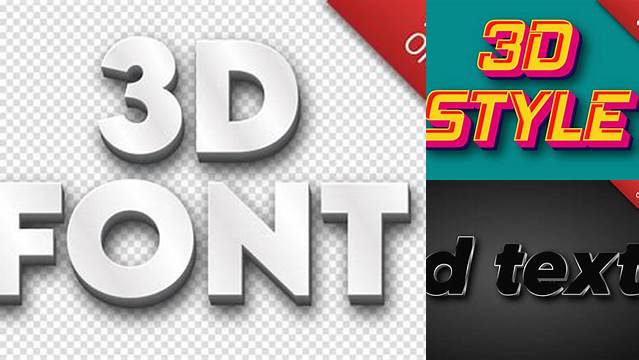
Unleash Your Creativity: Dive into the World of Font Generators & 3D Text Effects
Hey guys! Ever felt the need to spice up your designs, social media posts, or maybe even your presentations? You're in the right place! We're diving headfirst into the amazing world of font generators and 3D text effects, and trust me, it's a blast. In this article, we'll explore how these tools can transform your text from bland to grand, turning your creative visions into reality. Whether you're a seasoned designer, a social media enthusiast, or just someone who loves playing around with fonts, you're gonna find something awesome here. Let's get started, shall we?
Font Generators: Your Gateway to Typography Heaven
Let's kick things off with font generators. Imagine having a magic wand that lets you instantly create text in any style you can dream of. That's essentially what a font generator does. These online tools allow you to customize your text with a variety of fonts, styles, and effects, making it easier than ever to create visually appealing text. Font generators are incredibly useful for a wide range of applications, from designing eye-catching social media graphics to crafting professional-looking documents. Now, let's get into how these things actually work and why they're so darn cool. The primary function of a font generator is, well, to generate fonts! You can typically input your desired text and then customize it using a variety of settings. These settings usually include font selection, size, color, and style. Some font generators offer more advanced options, like the ability to add shadows, outlines, and other special effects. Using these tools, you can create text that perfectly matches the tone and style of your project. If you're working on a festive holiday design, you might opt for a playful, bubbly font. For a professional business presentation, you'd likely choose a clean, readable font. The flexibility offered by font generators is a game-changer, enabling you to adapt your text to any need quickly. The ease of use of font generators makes them accessible to everyone, regardless of their design experience. The user-friendly interfaces guide you through the customization process, so you don't need to be a graphic design expert to create impressive text effects. Many generators provide a real-time preview, so you can see how your text will look as you make adjustments. This feature allows you to experiment with different styles and settings until you find the perfect look. Font generators are not just about aesthetics. They also provide a practical solution for making your content more engaging and readable. A well-chosen font can significantly improve the visual appeal of your text, making it easier for your audience to understand and enjoy your message. By using a font generator, you can ensure that your text is not only visually attractive but also easy to read. The right font can even enhance your brand's identity. Consistent use of a specific font across your marketing materials can help create a recognizable brand image, making your audience familiar with your content. That helps you stand out from the crowd and reinforces your brand's personality. If you're looking to create unique, branded content, a font generator is an invaluable tool.
3D Text Effects: Take Your Text to the Next Dimension
Now, let's step it up a notch with 3D text effects. We're taking text from the flat world of 2D to the dynamic realm of three dimensions! Imagine your text popping off the screen, with depth, shadows, and an almost tangible feel. That's the magic of 3D text effects. These effects are perfect for creating logos, banners, and other design elements that grab attention and create a strong visual impact. Let's delve into how these effects work and why they are so effective. 3D text effects add depth and realism to your text. By simulating a third dimension, you can create text that appears to be floating in space, casting shadows, or even reflecting light. These effects create an impression of depth and movement, making your text more visually engaging. These effects are commonly achieved using various design software or online tools. The creation process usually involves extruding the text from its 2D form and then applying effects like shadows, highlights, and textures. Many tools offer different customization options, allowing you to control the appearance of your 3D text. You can adjust the angle of the shadows, the intensity of the highlights, and even the material of the text (like metal, wood, or glass). The versatility of 3D text effects makes them suitable for a wide range of applications. If you are designing a logo, 3D text can give your brand a unique and memorable look. If you're creating a banner, it can make your message more attention-grabbing. In social media posts, 3D text effects can help your content stand out in a crowded feed. They are also great for creating immersive experiences, like 3D movie titles or game graphics. When using 3D text effects, it's important to keep a few design principles in mind. First, make sure that your text is still readable. Complex 3D effects can sometimes make the text difficult to understand, so balance visual appeal with clarity. Second, consider the background of your design. The 3D text should complement the background, not clash with it. Finally, think about the overall design of your project. 3D text effects can create a professional, polished look, but they might not be suitable for every design. They are a great choice for projects where you want to make a bold visual statement and add a touch of sophistication. When used correctly, 3D text effects can transform your text into a powerful design element.
Free Font Generators and 3D Text Effect Tools: The Best of the Best
Tips and Tricks for Using Font Generators and 3D Text Effects
Now that you know where to find these amazing tools, let's talk about how to get the most out of them. Here are some tips and tricks to help you create designs that really pop. First, consider the context of your design. What is the purpose of your text? Is it for a logo, a banner, or a social media post? The context will help you choose the right font, style, and effects. If you are designing a logo, you might want to choose a unique and memorable font. For a banner, you might want to choose a bold and attention-grabbing style. Second, experiment with different fonts and styles. Don't be afraid to try out different combinations and see what looks best. You can use online tools to preview your text with different fonts, and you can also experiment with different styles and effects. Try different font sizes and colors to determine the best look. Also, consider the readability of your text. Your text should be easy to read, so avoid using overly complex fonts or effects. Ensure your text is legible, especially for longer blocks of text. Also, make sure your text is the right size for the intended use. For example, you can make it small if it is for a website, or huge if it is for a billboard. Next, think about the overall design of your project. Your text should complement the background and other design elements, not clash with them. Also, use white space effectively. Don't clutter your design with too much text or other elements. The effective use of white space can make your design more visually appealing and easier to read. Finally, don't be afraid to get creative! These tools are meant to be fun, so experiment with different styles and effects and see what you can come up with. The most important thing is to have fun and express yourself creatively. The more you experiment, the better you will become at creating stunning text designs. Remember, practice makes perfect!
The Future of Text Design
So, what's next for font generators and 3D text effects? The future is looking bright, and there are tons of exciting developments on the horizon. One trend is the increasing integration of AI in design tools. AI can help you generate text designs automatically, based on your preferences and the context of your design. This can save you time and effort and also help you create designs that are truly unique. Another trend is the rise of personalized design. More and more design tools are offering options for personalizing your text designs. This means you can create designs that are tailored to your specific needs and preferences. Look forward to more advanced tools that offer more customization options and more creative possibilities. As technology continues to evolve, we can expect to see even more innovative and user-friendly tools. The future of text design is bright. So keep experimenting, stay curious, and don't be afraid to try new things.